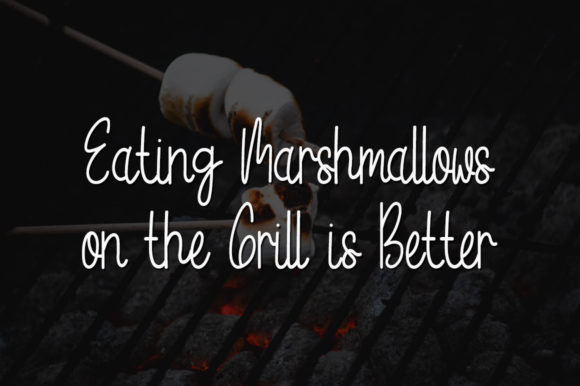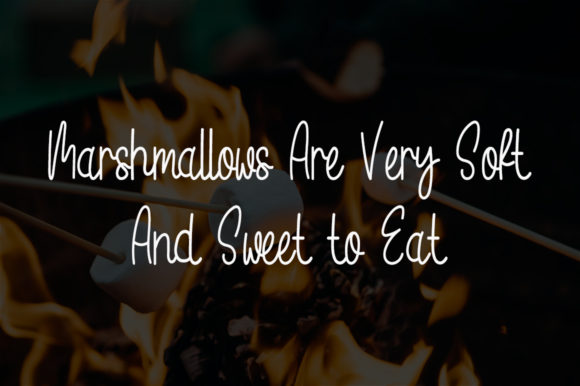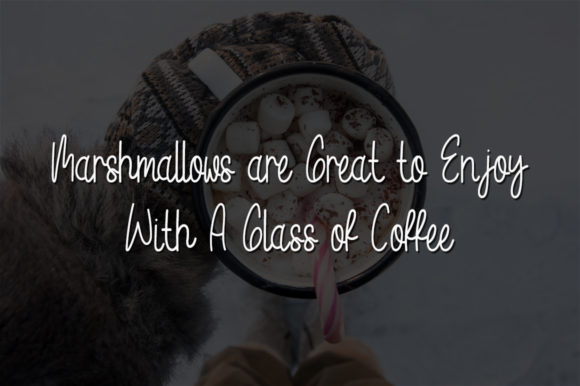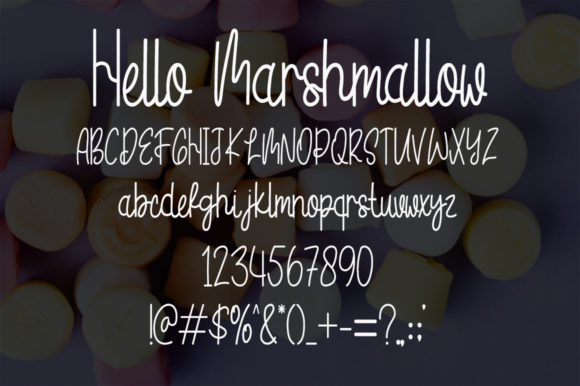
Introduction to Hello Marshmallow Font
Hello Marshmallow is a simple, cursive and well balanced handwritten font.
Elegant and original, this font will make each of your designs stand out .
Key Features of Hello Marshmallow Font
Why Choose Hello Marshmallow Font?
Hello Marshmallow Font offers exceptional quality and versatility, making it a valuable addition to your design toolkit. Whether you’re creating for personal projects or commercial use, Hello Marshmallow Font delivers professional results.